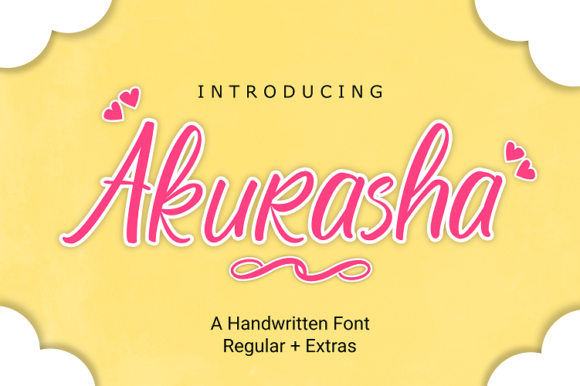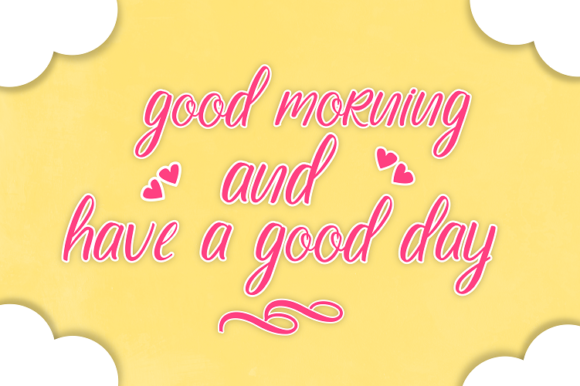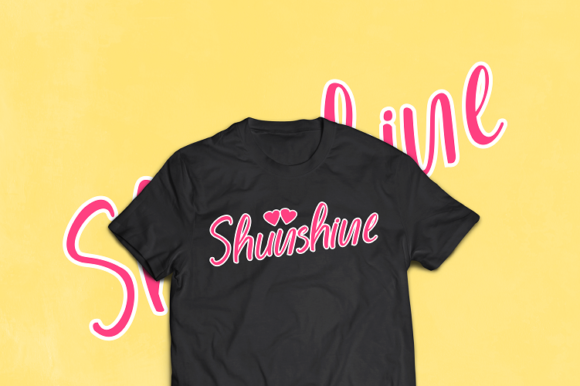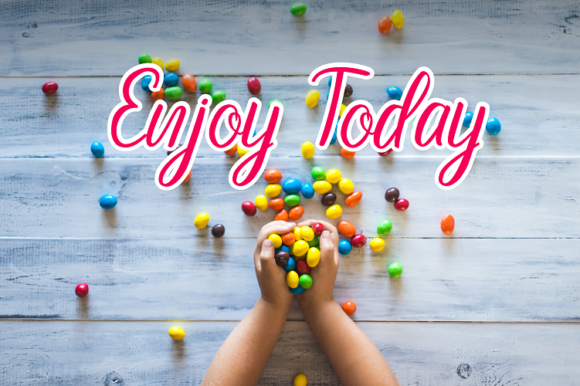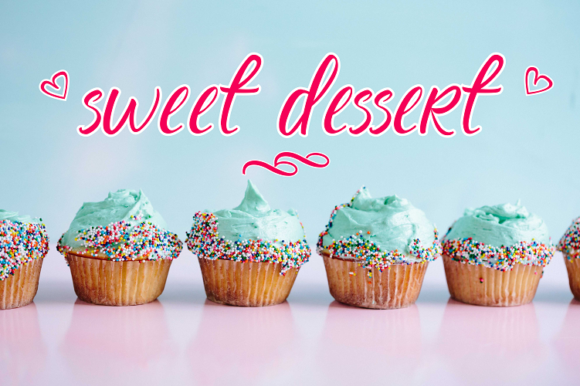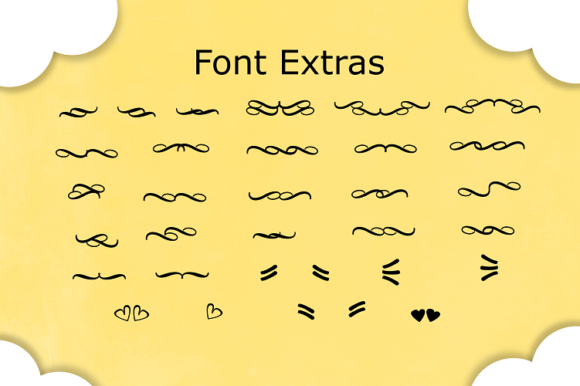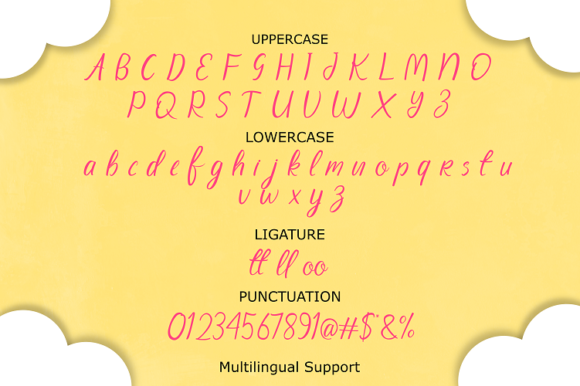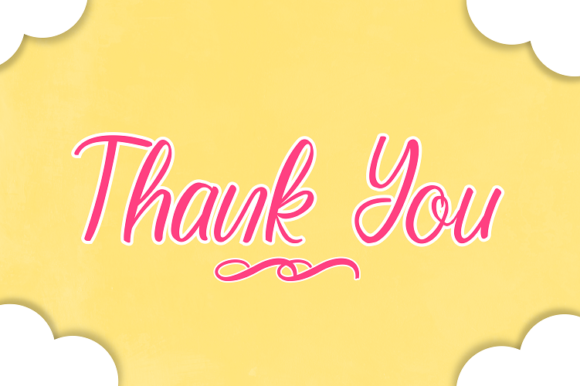
HomeScript FontsAkurasha Font Script Fonts Akurasha Font FacebookXPinterestWhatsApp Akurasha Font Poster 2 Akurasha Font Poster 3 Akurasha Font Poster 4 Akurasha Font Poster 5 Akurasha Font Poster 6 Akurasha Font Poster 7 Akurasha Font Poster 8 About Akurasha Font Akurasha is a sweet and charming handwritten font. It’s great for branding, poster, craft, quotes, and much more! DOWNLOAD ON CREATIVE FABRICAThis font is sold and delivered by Creative Fabrica. Font Canyon may earn a commission if you buy through this link. People also explored Pandaro Font Butterfly Font Bobagum Font Mandalove Font Soulmate Font Sausage Font Arlen Script Font Serasa Font Hughson Family Font 346 0 TagsAkurasha Font Previous articleAuklander FontNext articleBournoville Font LEAVE A REPLY Cancel reply Comment: Please enter your comment! Name:* Please enter your name here Email:* You have entered an incorrect email address! Please enter your email address here Website: Save my name, email, and website in this browser for the next time I comment. Personal Use Free Lover Loves Personal Use Free Read more about this font Sarwendah Personal Use Free Read more about this font Awesome Snowflakes Font Personal Use Free Read more about this font Hubbies Personal Use Free Read more about this font BLOG Exploring Font Trends Shaping Communication in the Digital Era Fonts, like all design elements, are subject to trends. They play a crucial role in communicating a brand's personality,... Free vs Paid Fonts: Why Investing in Premium Fonts Is Worth It Best Fonts for YouTube Videos: Make Your Thumbnails Stand Out Modern Sans-Serif Fonts That Brands Love in 2025